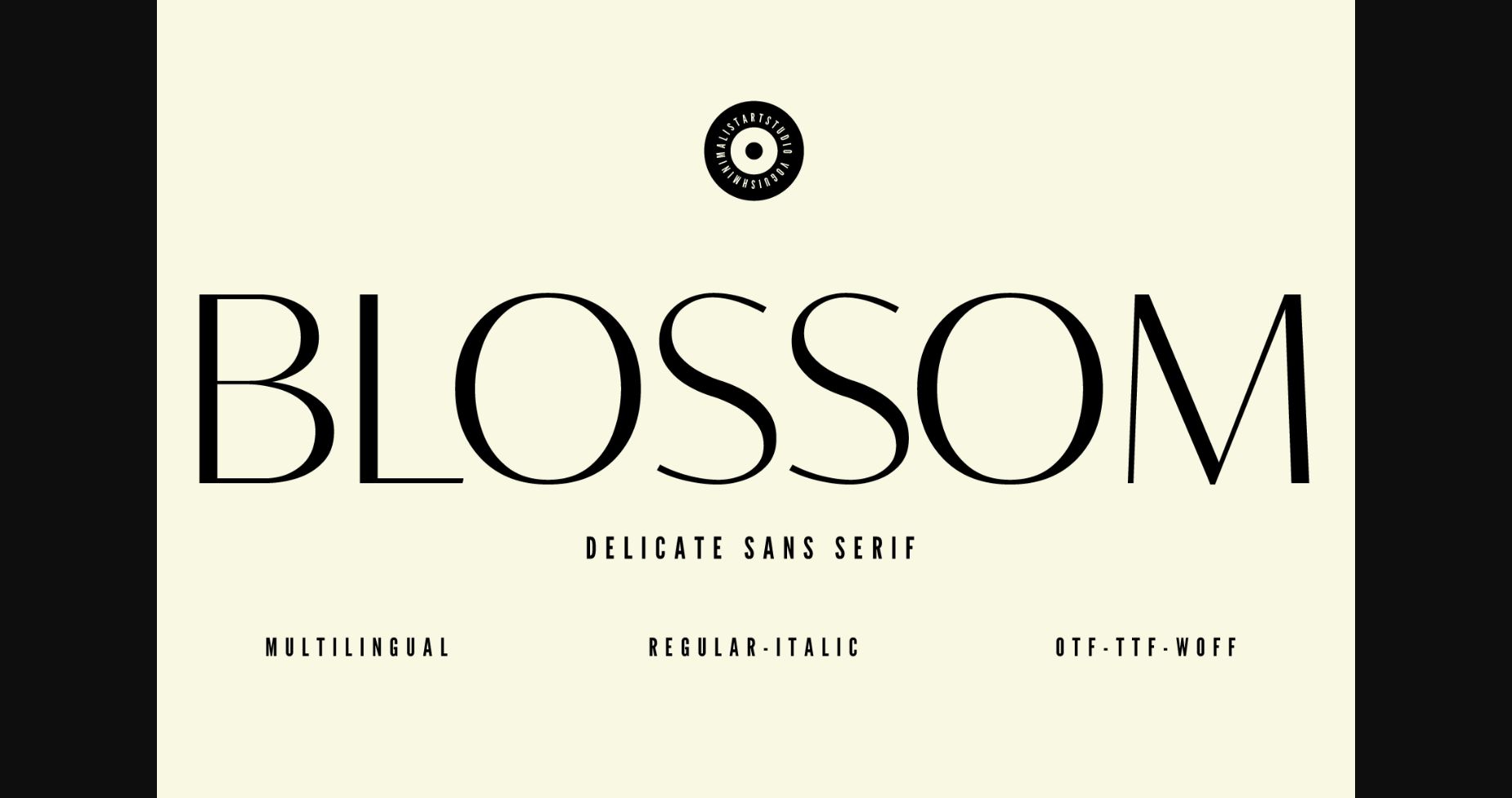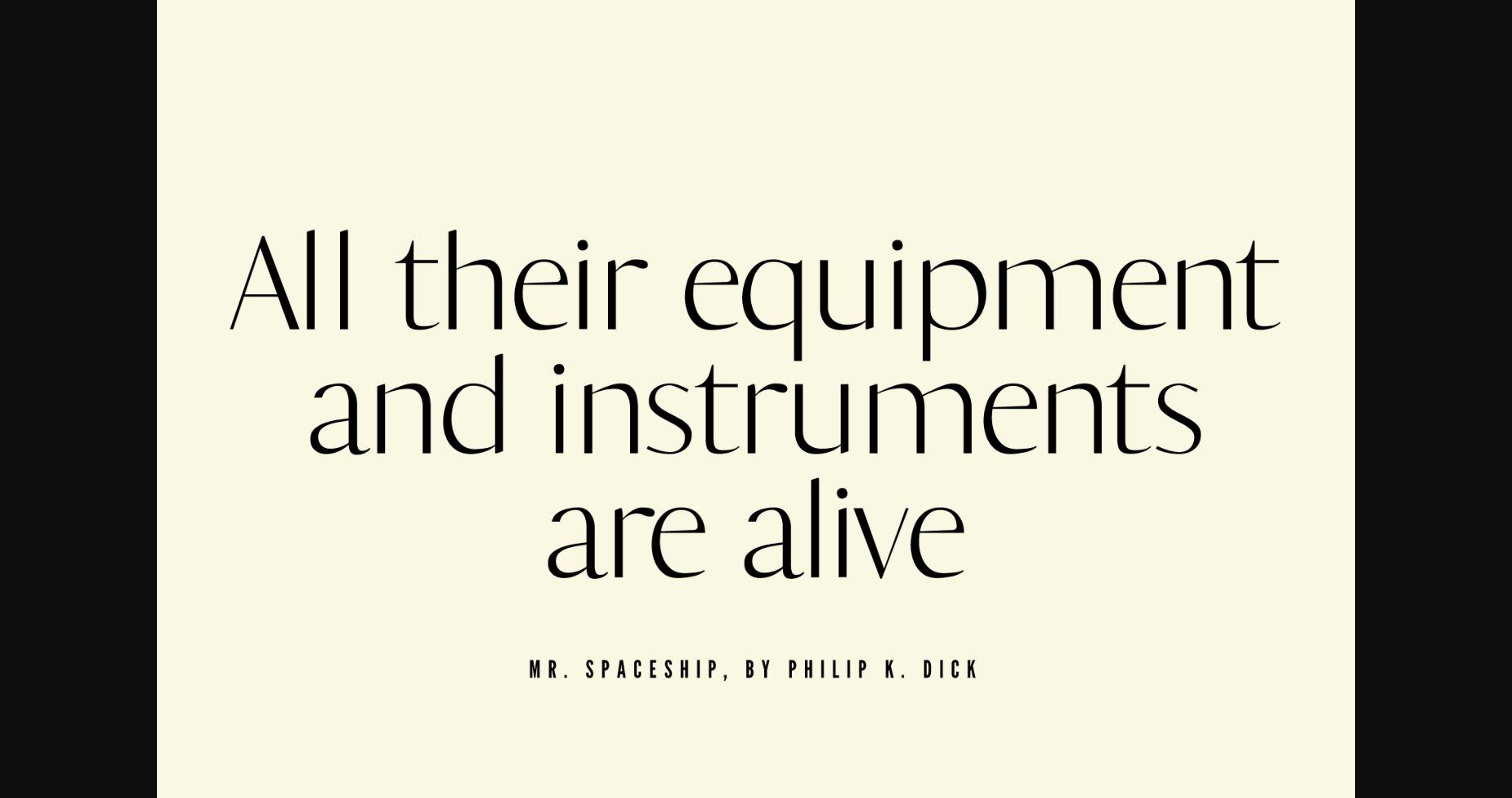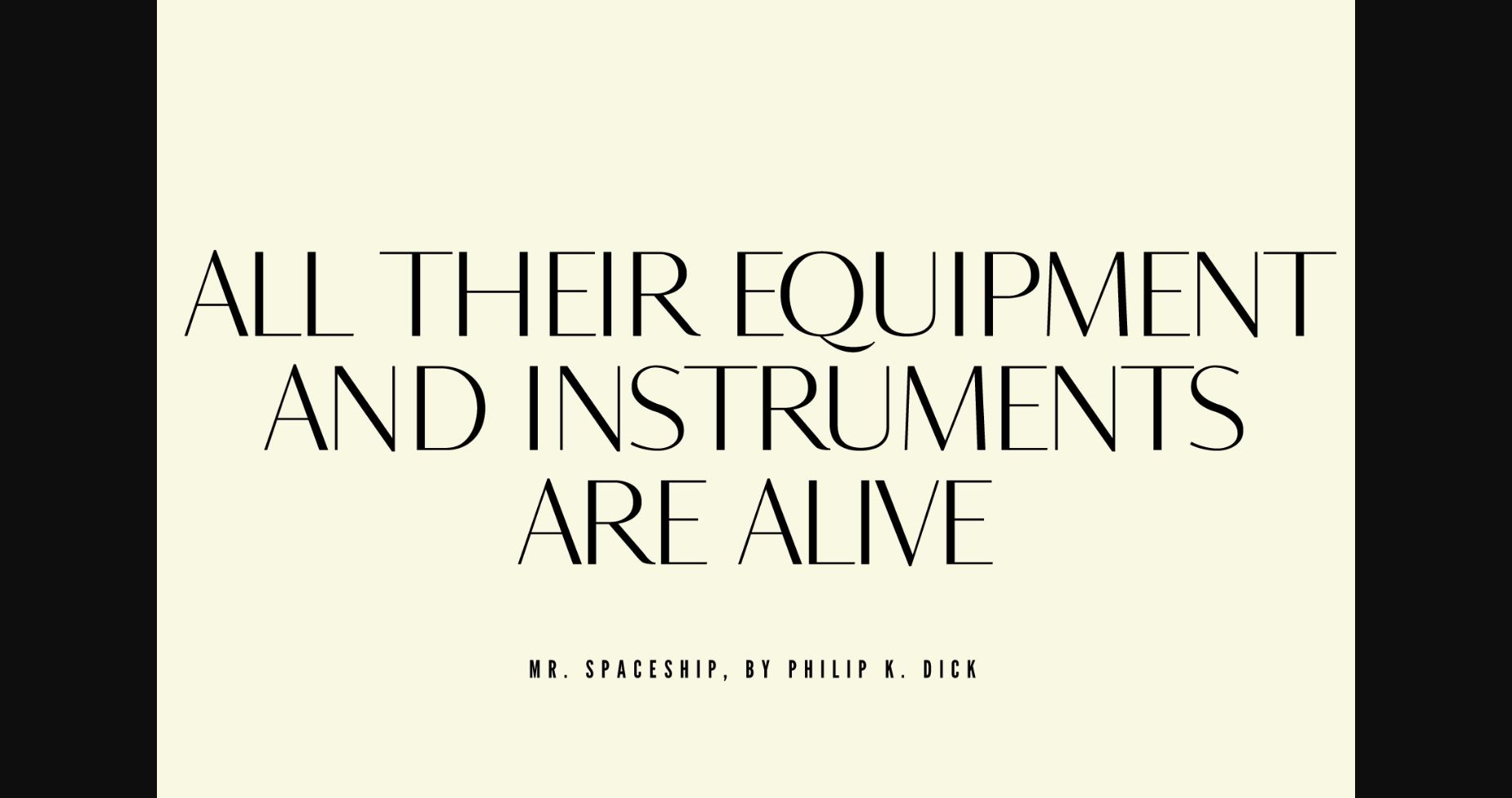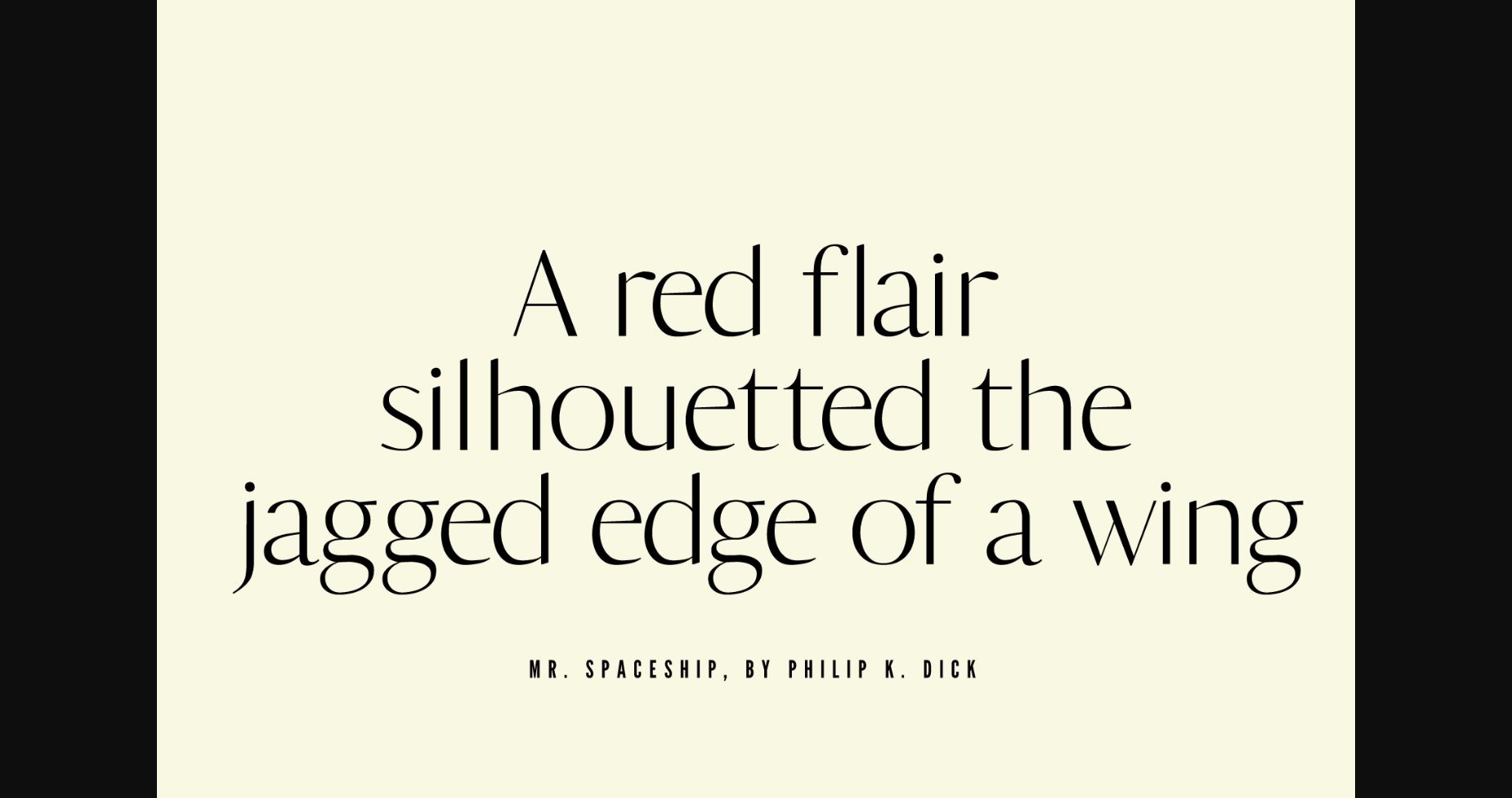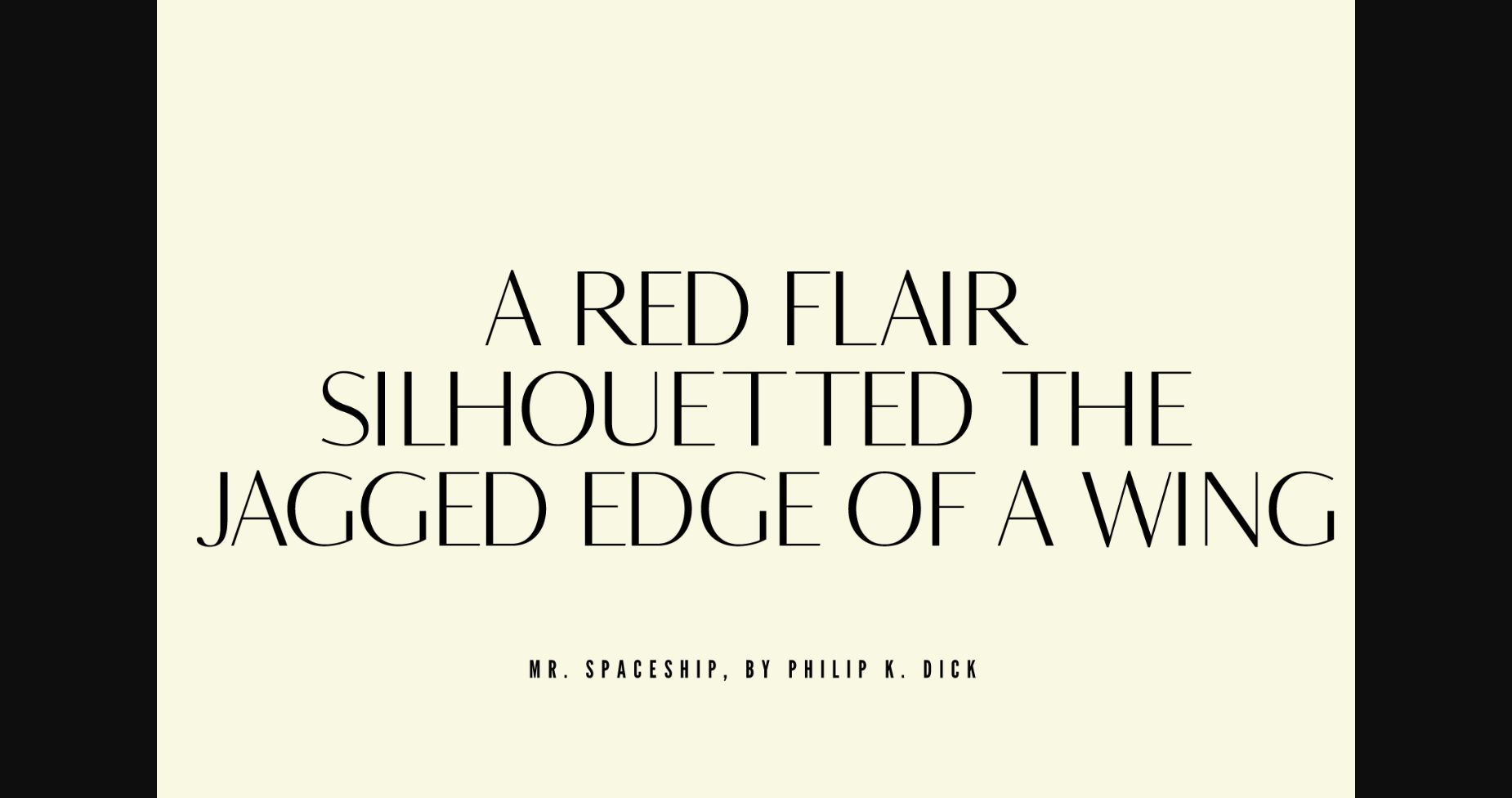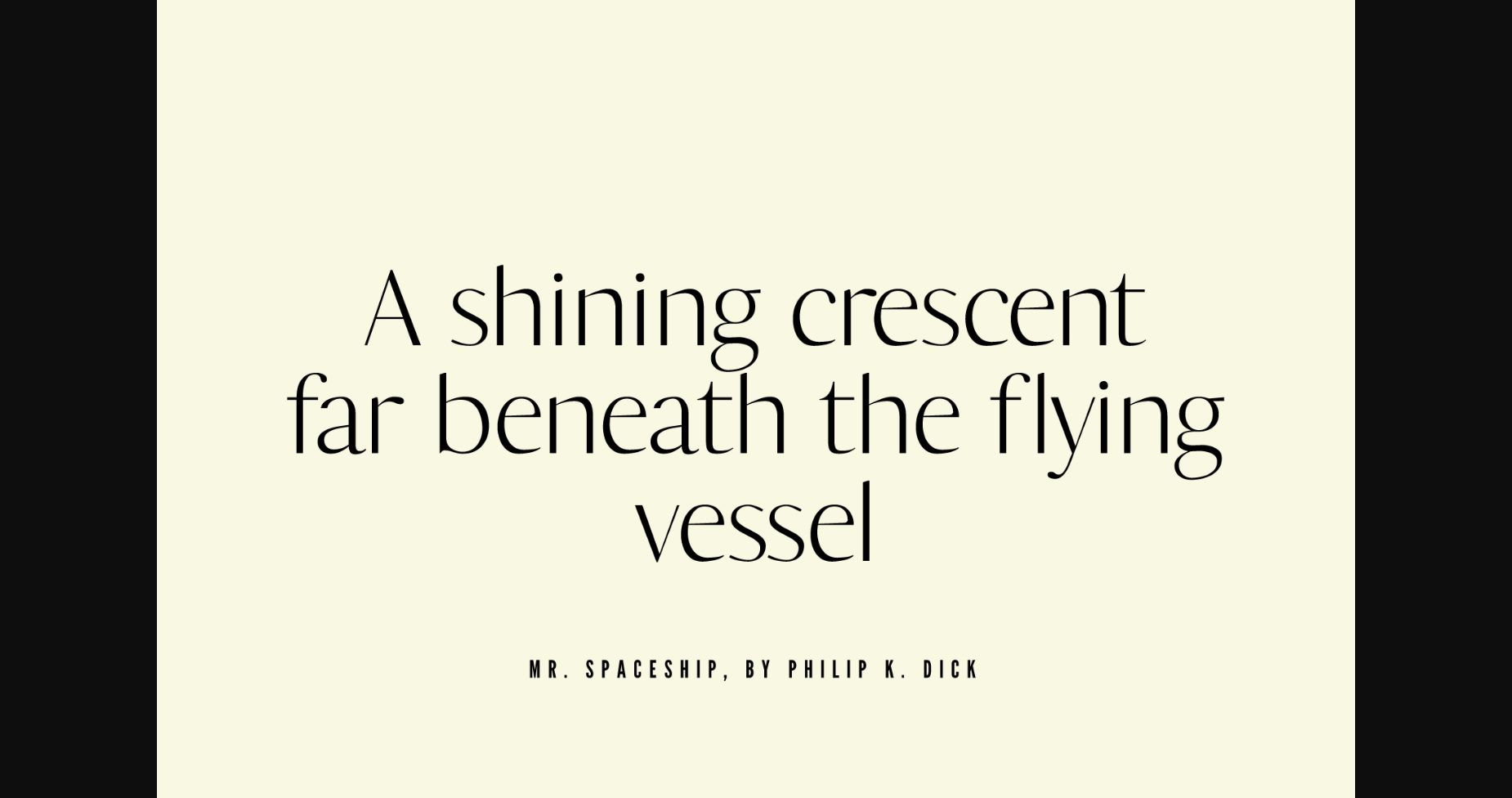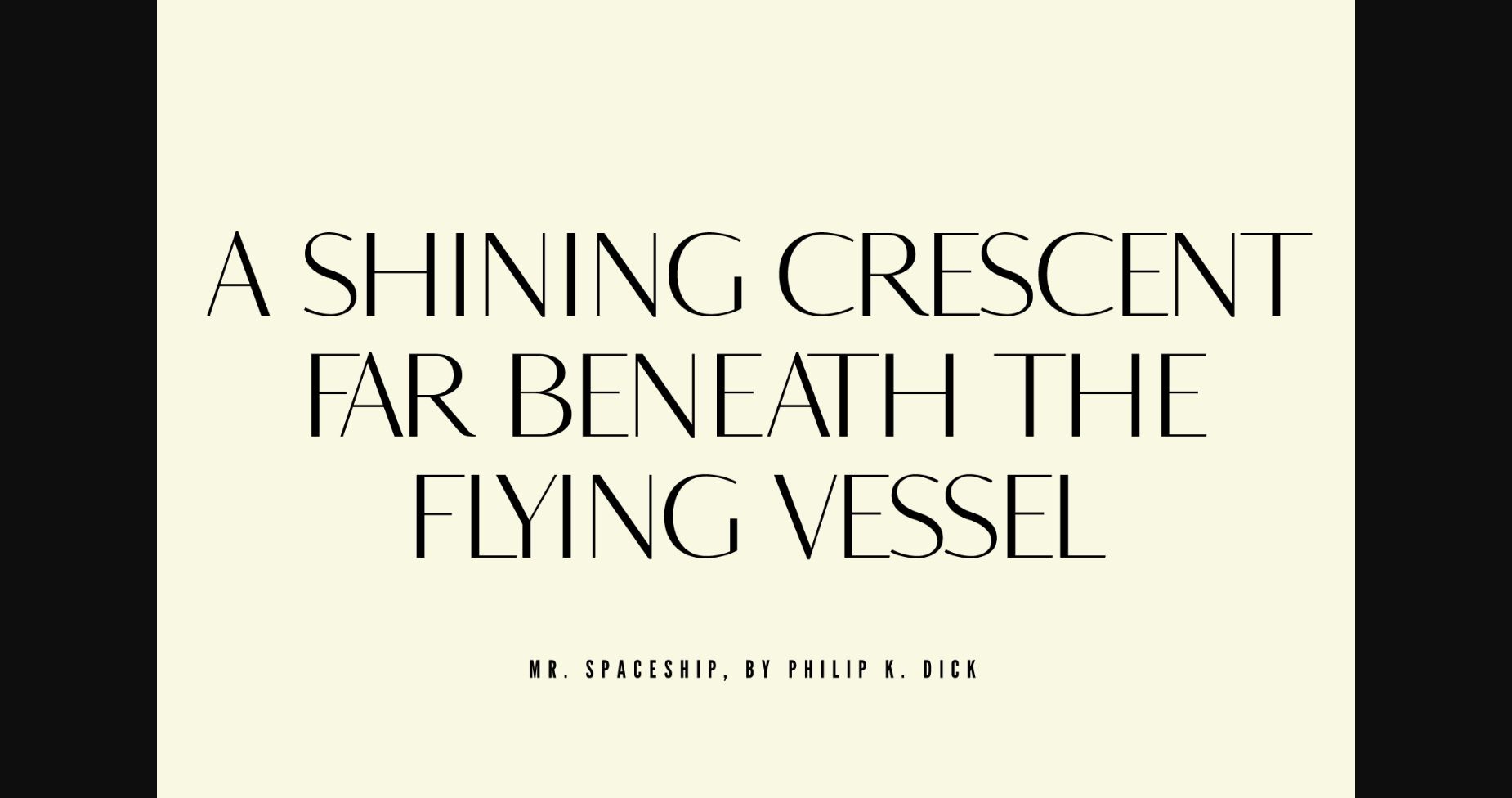
Blossom Font
About Blossom Font
Introducing Blossom, the chic and elegant sans-serif font that will elevate your designs to the next level. With its delicate lines and sophisticated curves, Blossom is perfect for luxury branding, editorial layouts, and high-end product packaging.
With over 520 glyphs, Blossom offers a wide range of options for customization and creative expression. Plus, with multi-lingual support, this font is perfect for designers who work with clients worldwide.